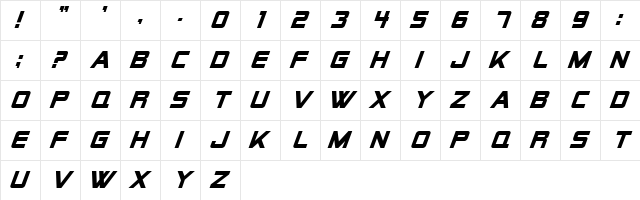
Alien Encounters Solid Bold Italic Font Preview
Design Context for Alien Encounters Solid Typeface
Alien Encounters Solid offers clean, dependable letterforms without strong stylistic allegiance, making it a practical choice for designers who need flexibility. The slanted form adds forward momentum and visual energy. The heavy weight commands attention and anchors typographic hierarchies.
Pro Tip: Try Alien Encounters Solid for annotation and caption copy alongside an upright companion — the contrast in angle creates a dynamic but ordered typographic system.